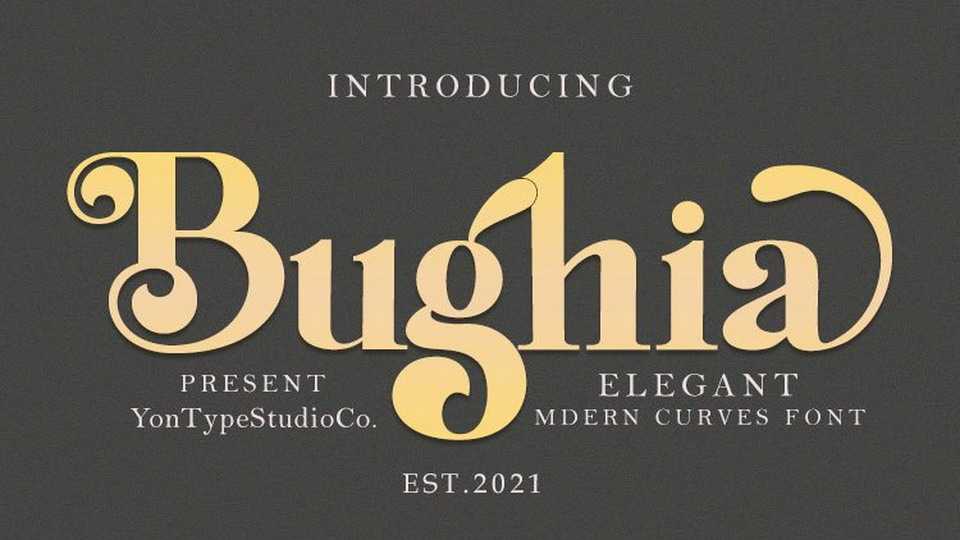
Download Bughia font, a beautiful serif typeface with balanced curves. Bughia font inspired by writing from the good old days, but still has a strong modern look.
Designer: YonTypeStudioCo